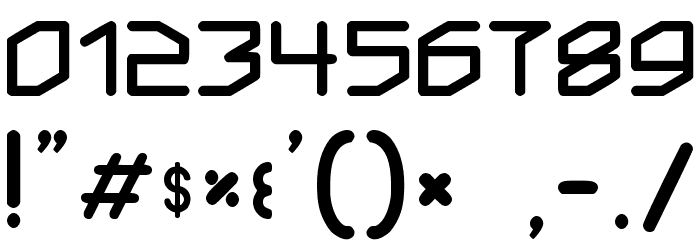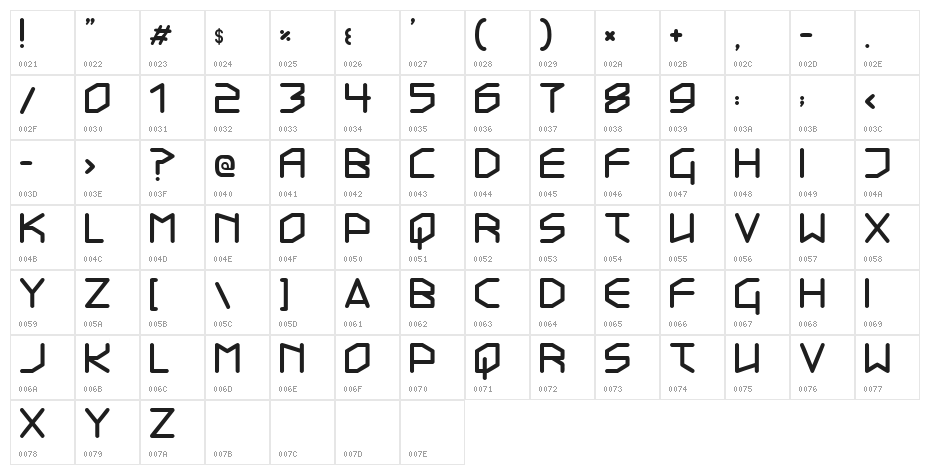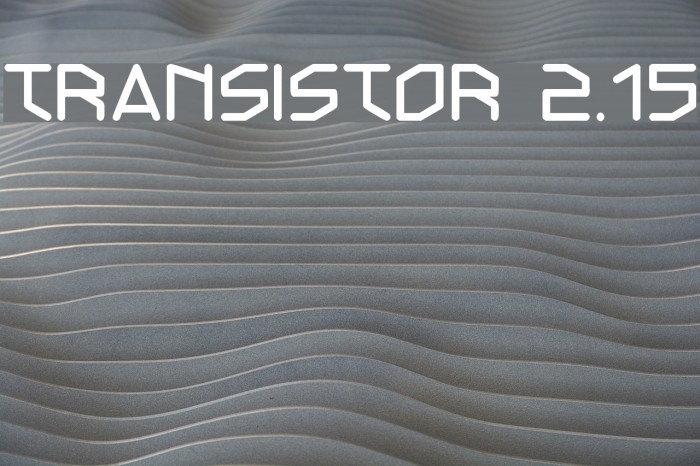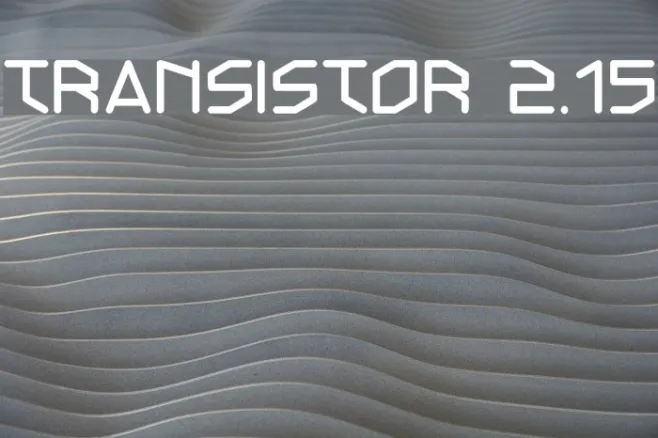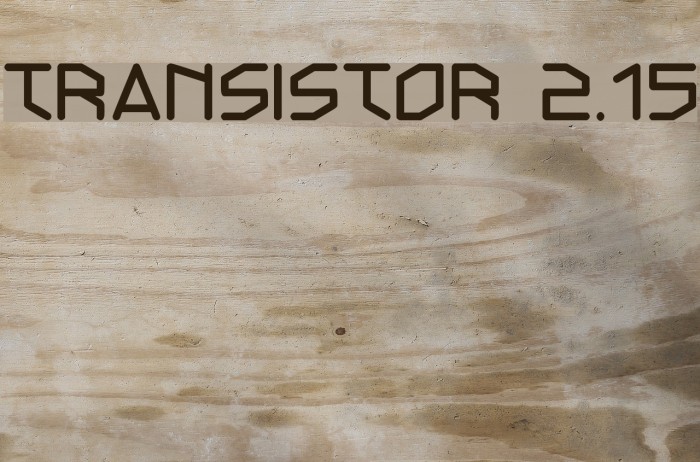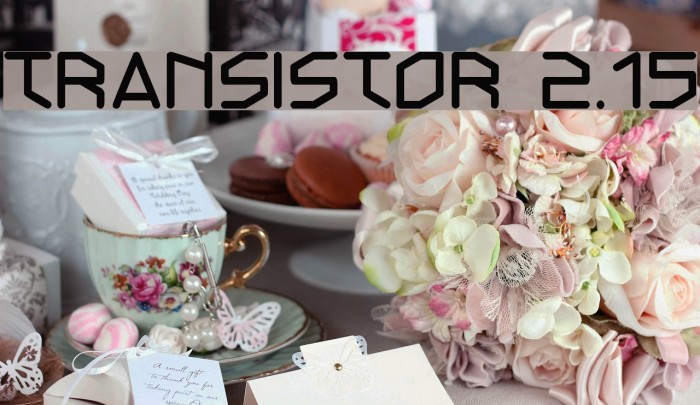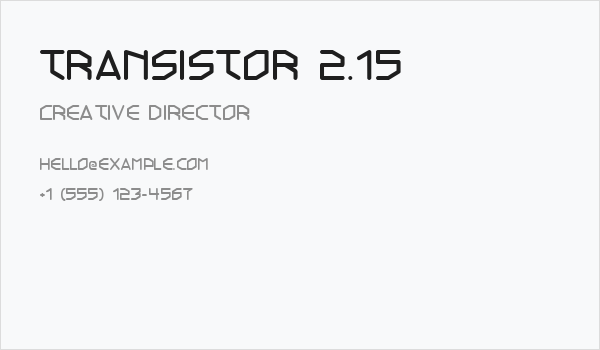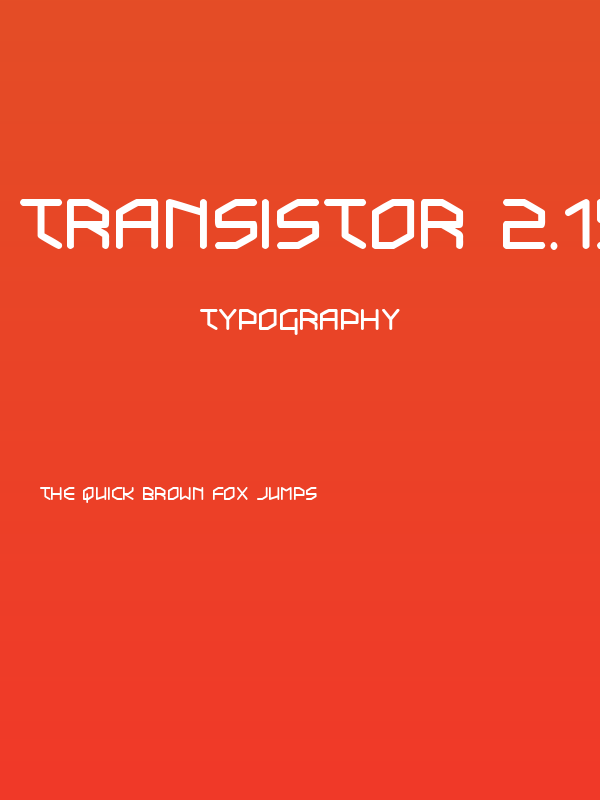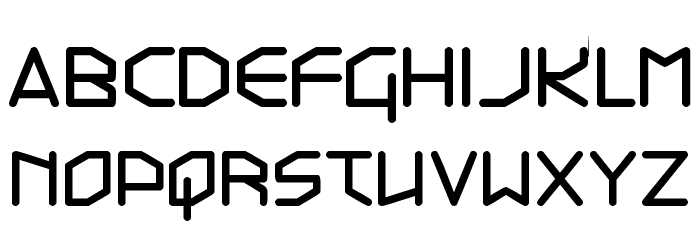
Transistor 2.15 Font
Transistor 2.15 Description
This font features a futuristic and geometric design, characterized by its angular and streamlined letterforms. The uppercase and lowercase letters share a consistent style, with sharp edges and a uniform stroke width that gives it a modern and technical appearance. The numerals and special characters maintain this aesthetic, ensuring a cohesive look across all glyphs. The font's design is reminiscent of digital displays and electronic interfaces, making it suitable for technology-themed projects. Its clean lines and structured form provide excellent readability, even at smaller sizes.
| Use Case | Headlines, Logos, Digital displays |
| Proposed Projects | Ideal for technology branding, digital interfaces, video game graphics, and sci-fi themed designs. |